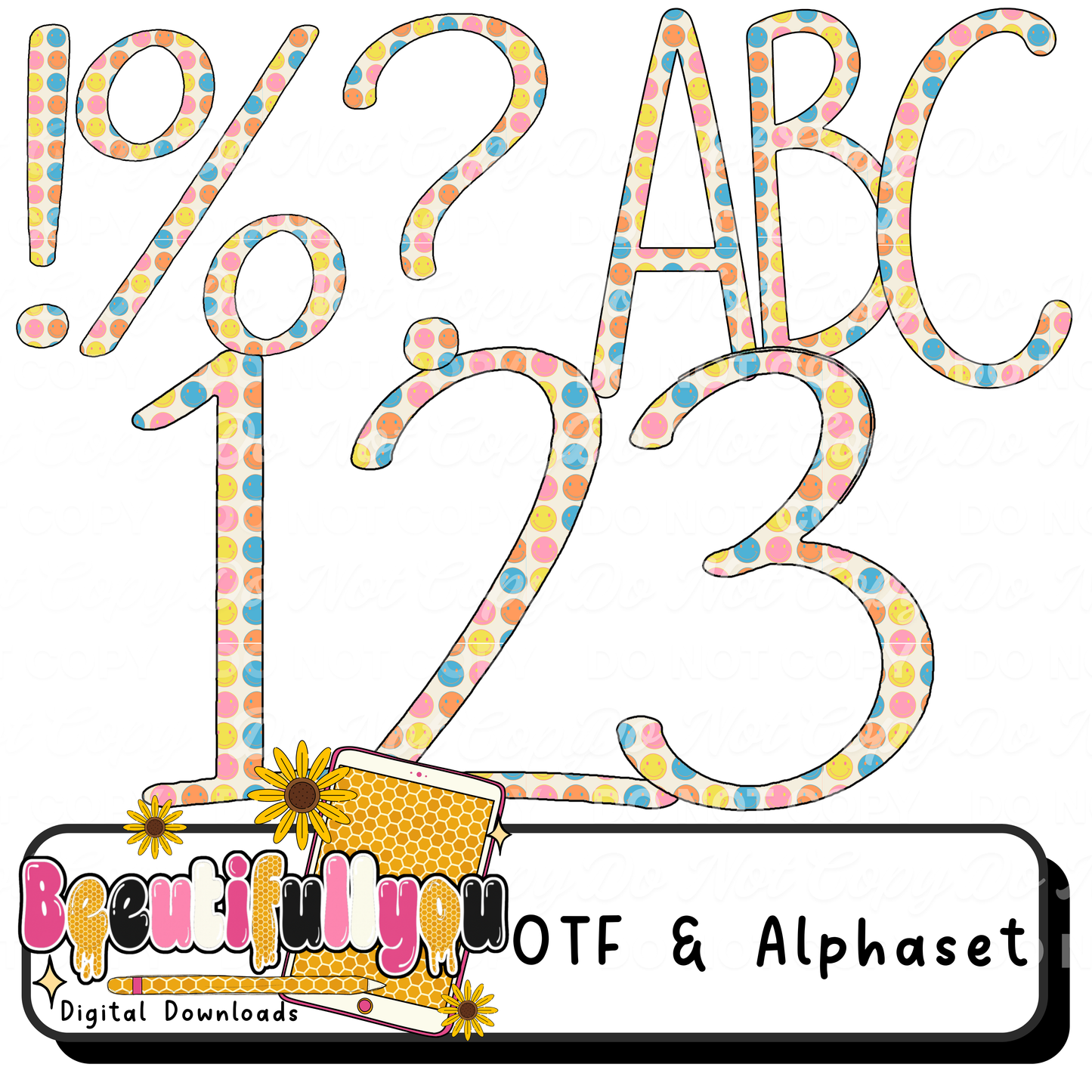
🌈😊 Add a pop of HAPPY to your designs!
This fun and colorful smiley face alphabet font is perfect for creating bold, playful, and trendy designs your customers will LOVE! Featuring a retro-inspired style with cheerful smiley patterns, this font is made to stand out ✨
Perfect for boutique designs, teacher shirts, kids apparel, and trendy graphic tees 💖
✔ Full Alphabet Set (A–Z)
✔ Numbers (0–9)
✔ Super trendy smiley aesthetic